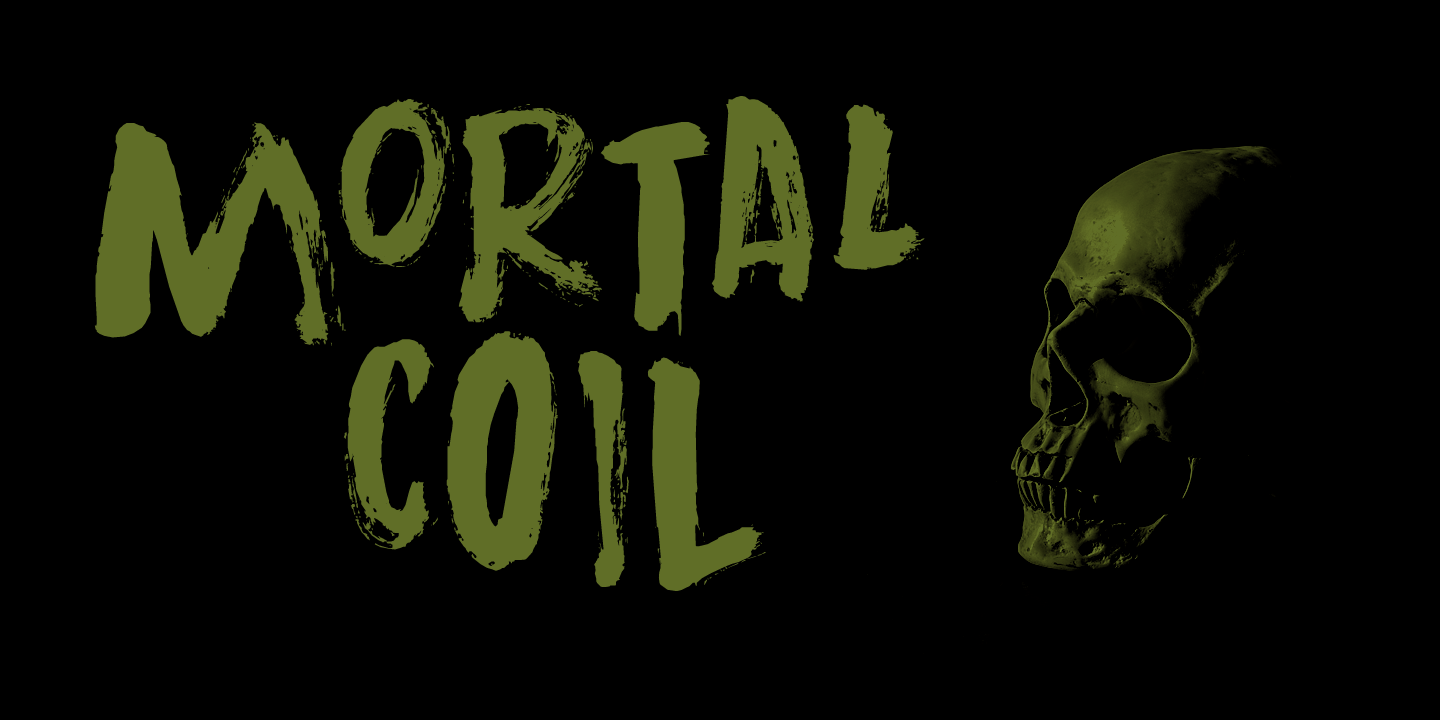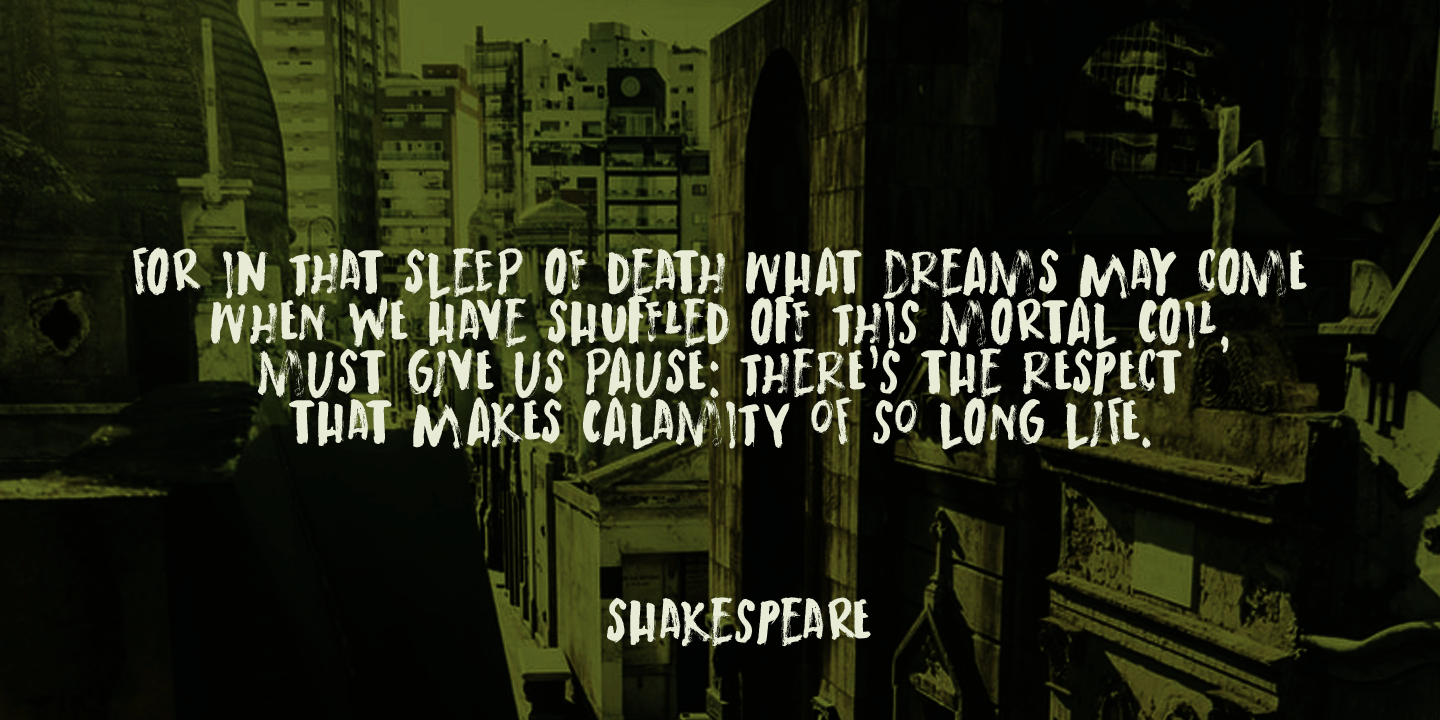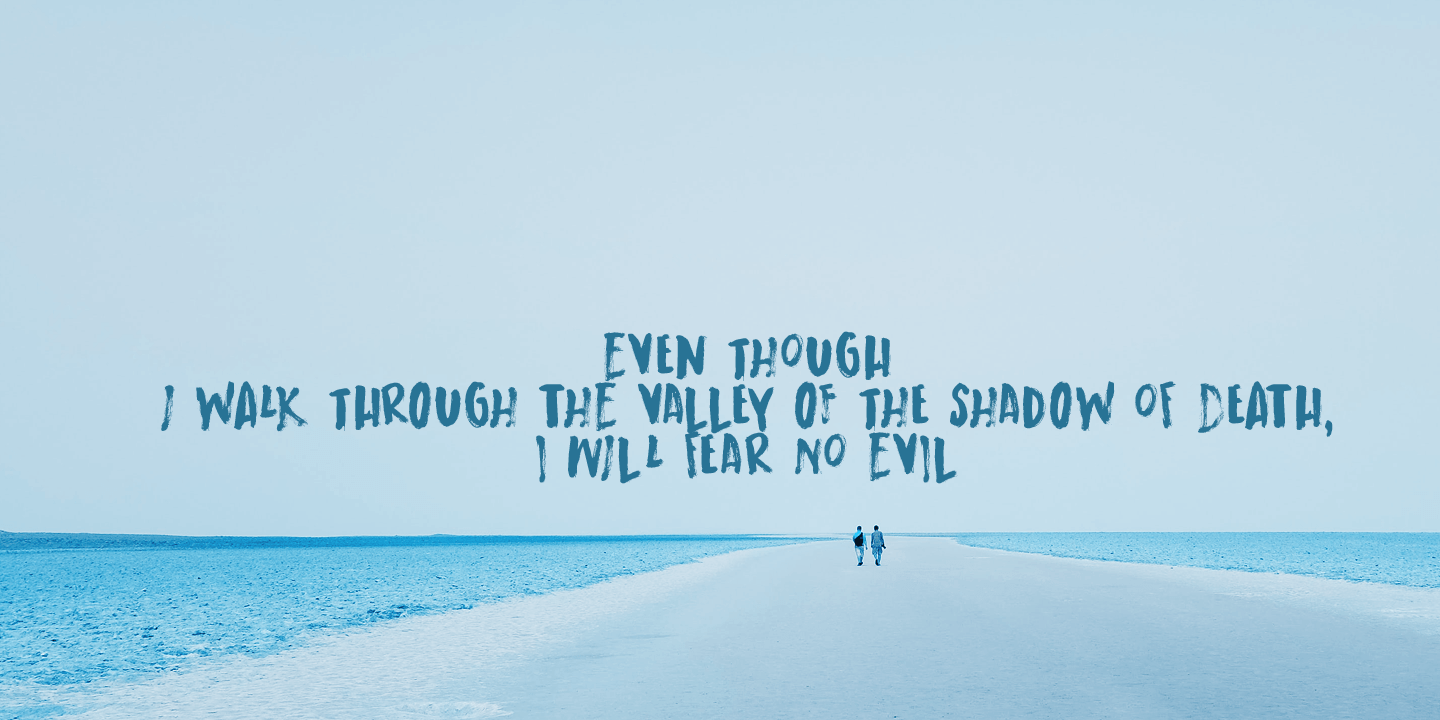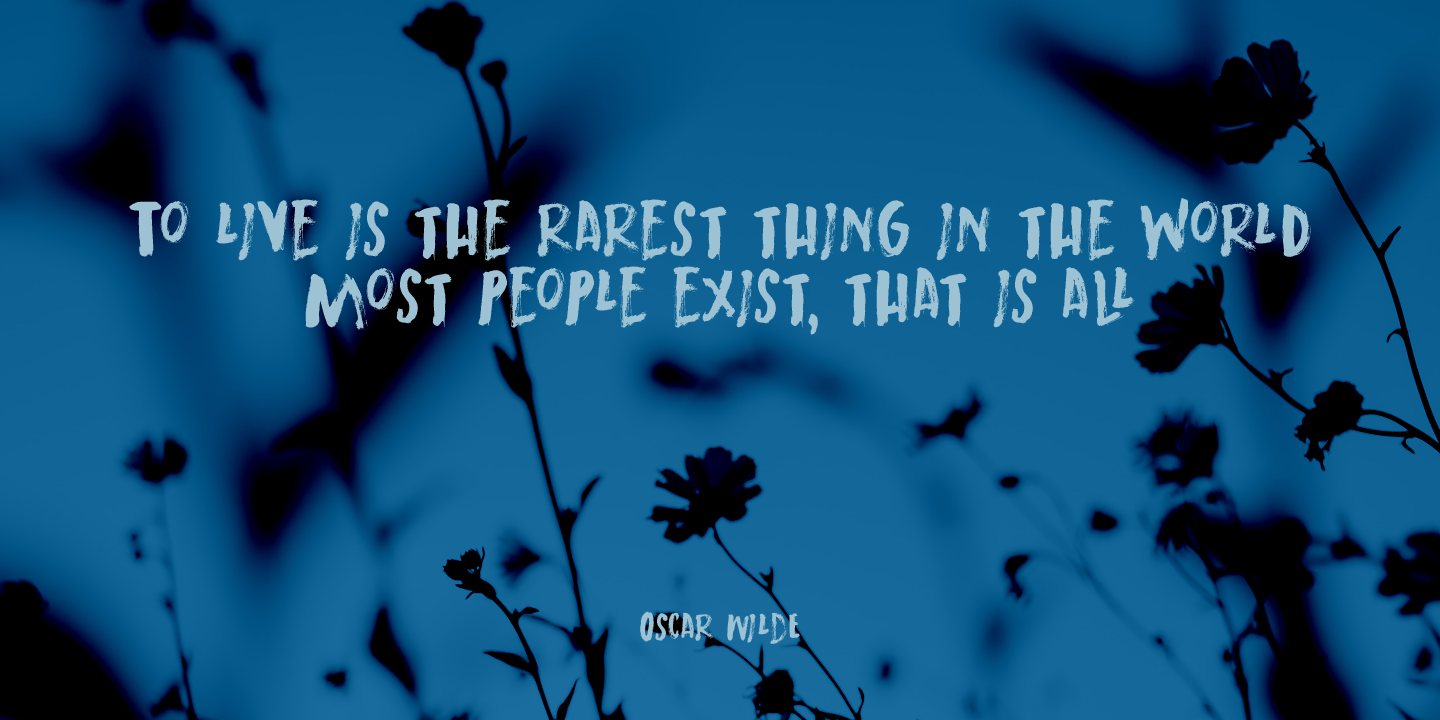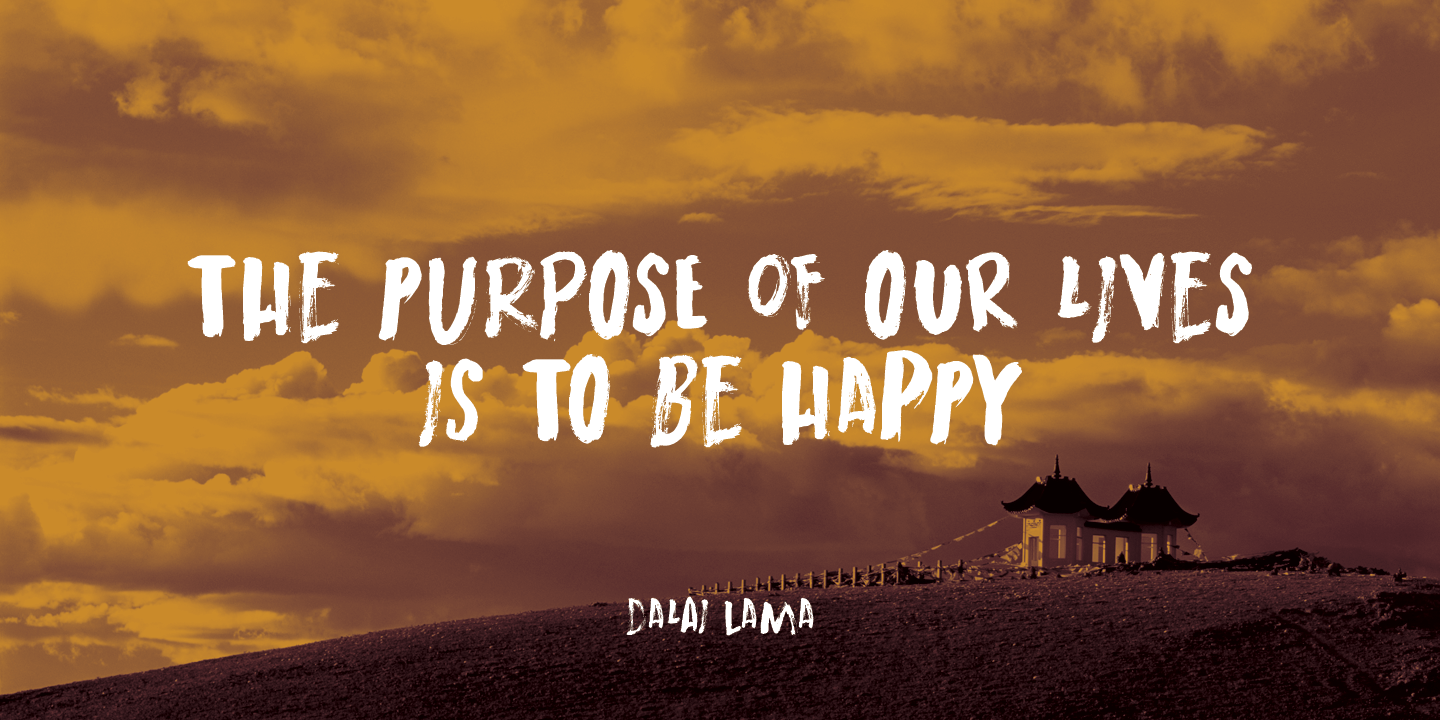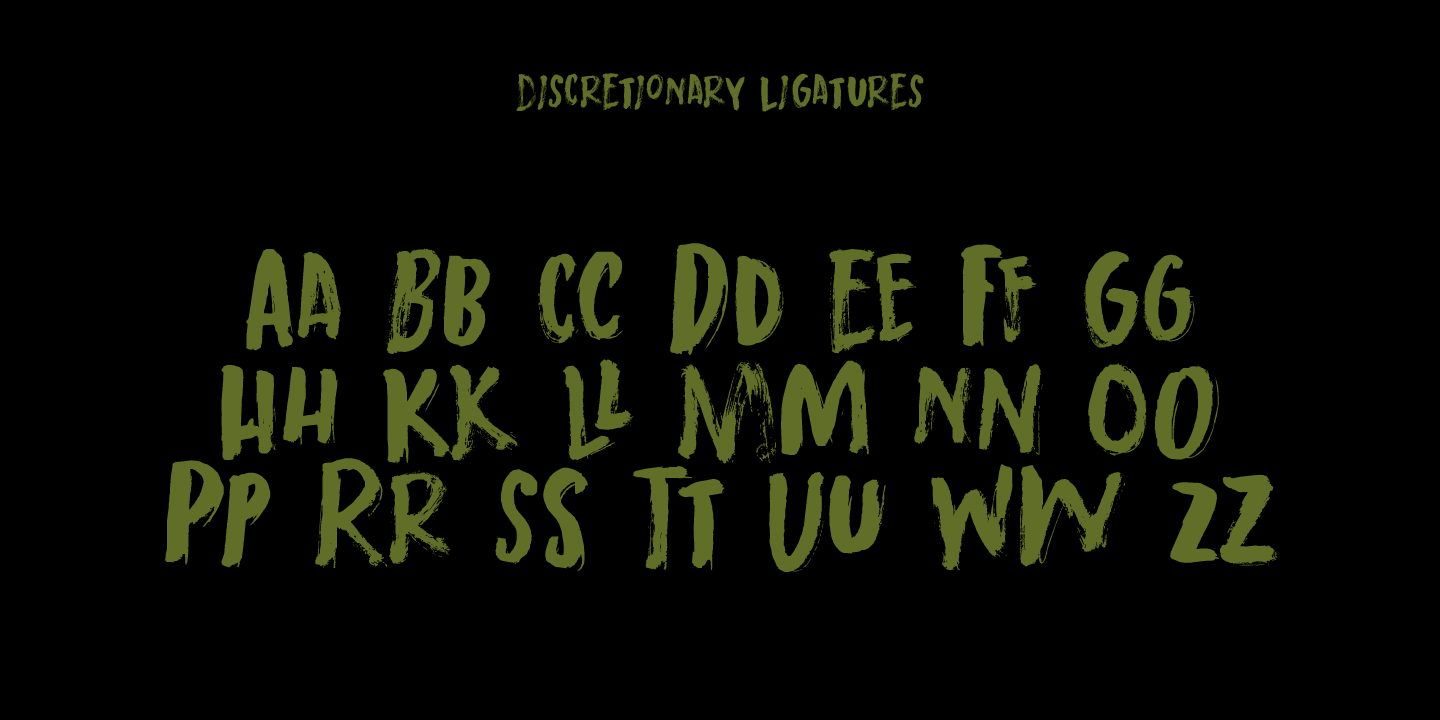
Mortal Coil
Font Family by Hanoded
Buy NowI was playing around with an old brush I found in our kitchen: it had fallen under the stove and it had probably been hiding there for quite some time! I dusted it off, got my Chinese ink and set to work. The result is a scary-ish font.
Mortal Coil comes with discretionary ligatures for double lower case letter combinations.